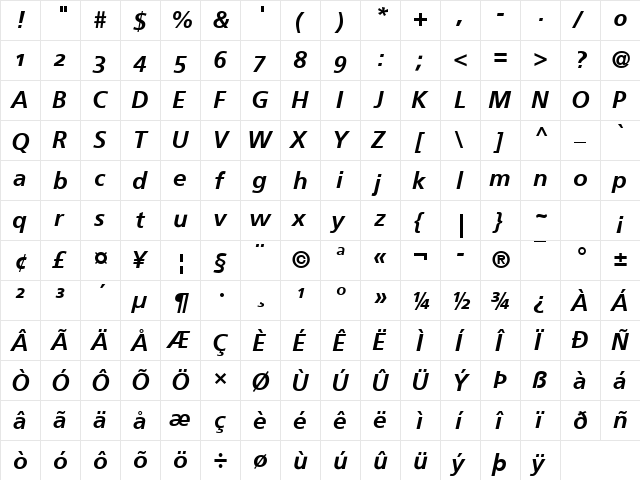
Frutiger Linotype Bold Italic
Design Context for Frutiger Linotype Typeface
Frutiger Linotype is a composed and adaptable typeface that performs quietly and consistently across a wide range of design contexts. Its italic angle brings a sense of urgency and motion to the letterforms. Its bold stroke weight gives it real presence on the page.
Pro Tip: Try Frutiger Linotype for annotation and caption copy alongside an upright companion — the contrast in angle creates a dynamic but ordered typographic system.